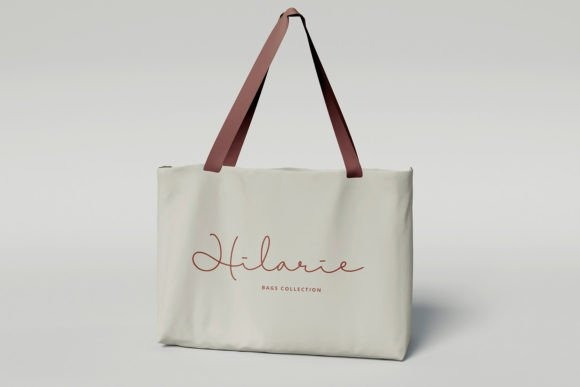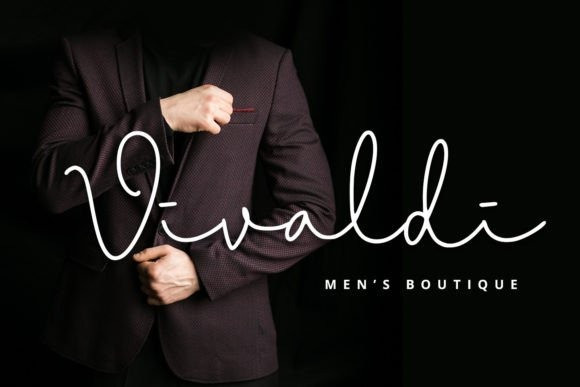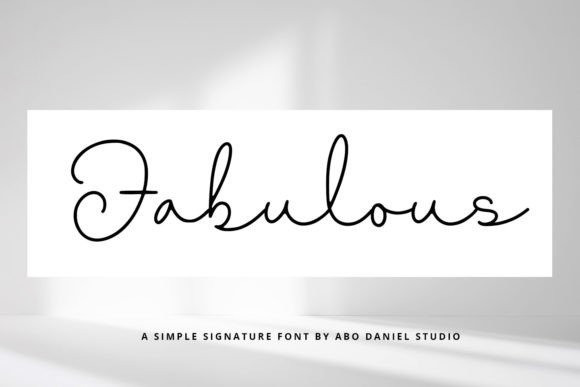
Fabulous ads Font
Fabulous ads Font is a dazzling script font. This font is neatly crafted and highly detailed. Whatever the topic, this font will be a wonderful asset to your font library, as it has the potential to enhance any creation.